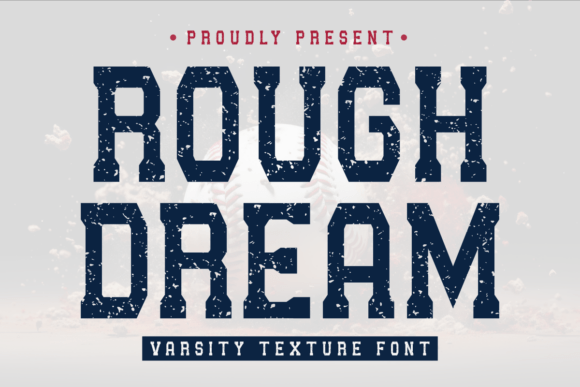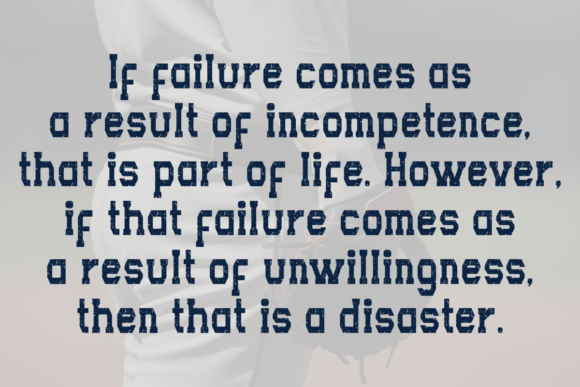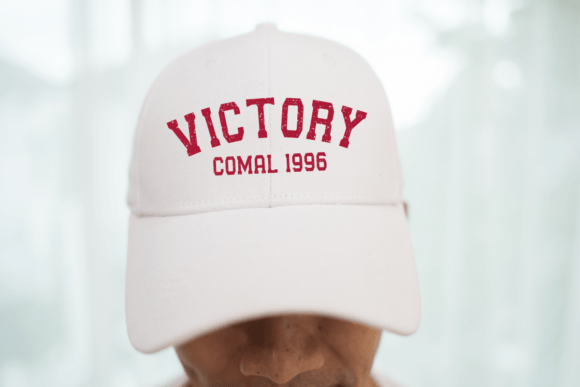
Rough Dream Font
Rough Dream is a bold varsity-style font with a gritty, textured look that exudes strength and nostalgia. Inspired by classic sports lettering and vintage athletic designs, this font is perfect for team logos, sportswear, posters, and event branding. Its distressed texture adds an authentic, worn-in feel, making it great for projects that need a tough, competitive edge. Whether you’re designing for baseball, football, college apparel, or motivational sports graphics, Rough Dream delivers a bold and fearless impact.